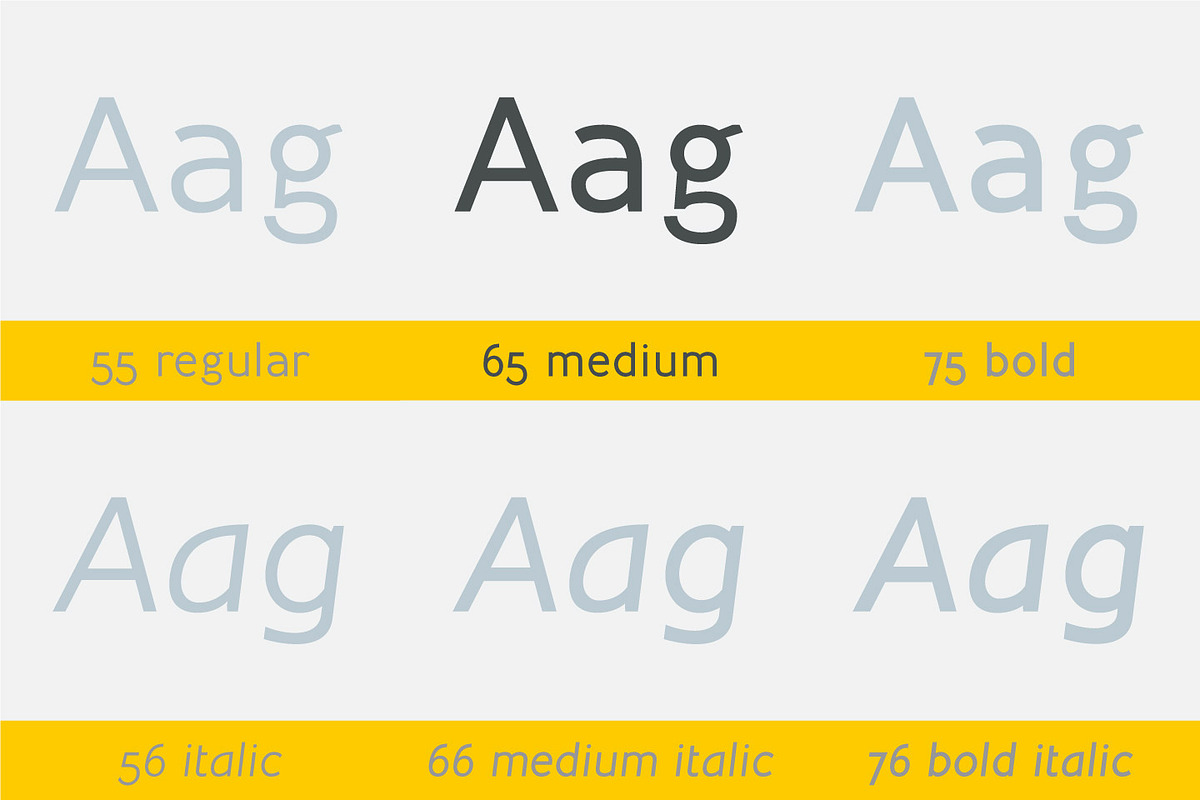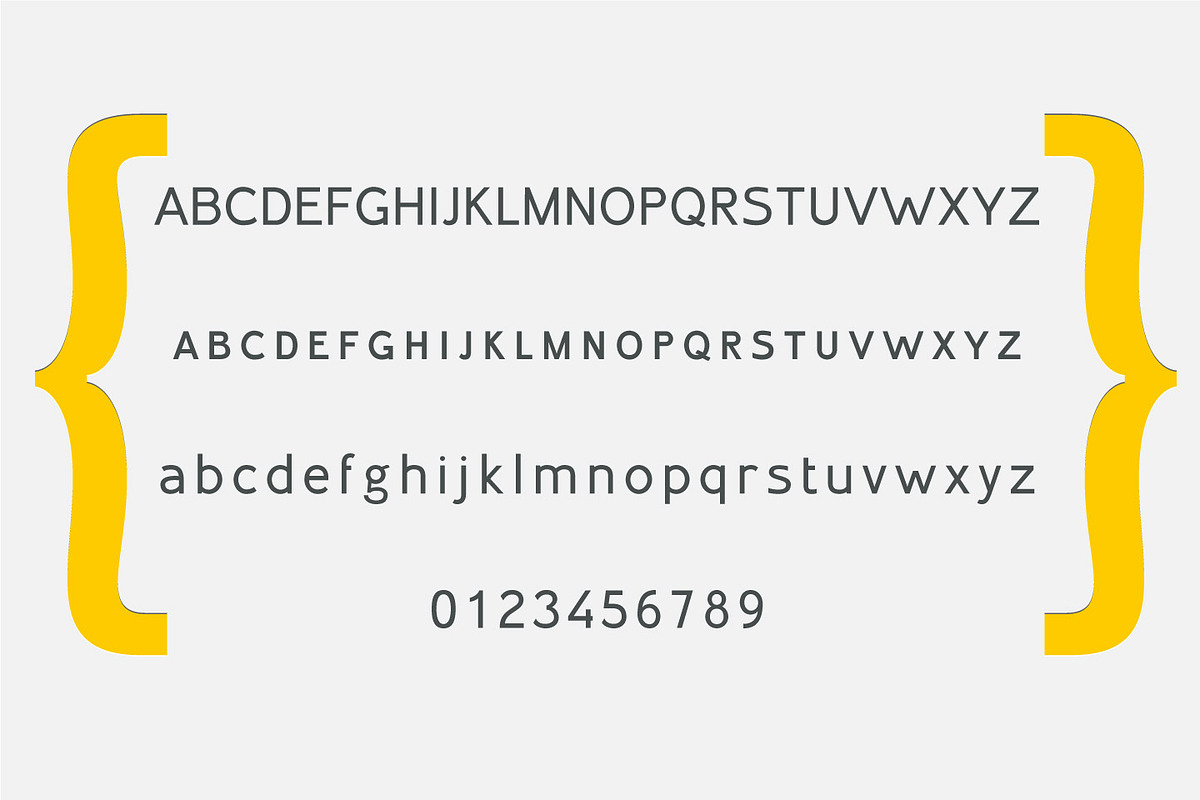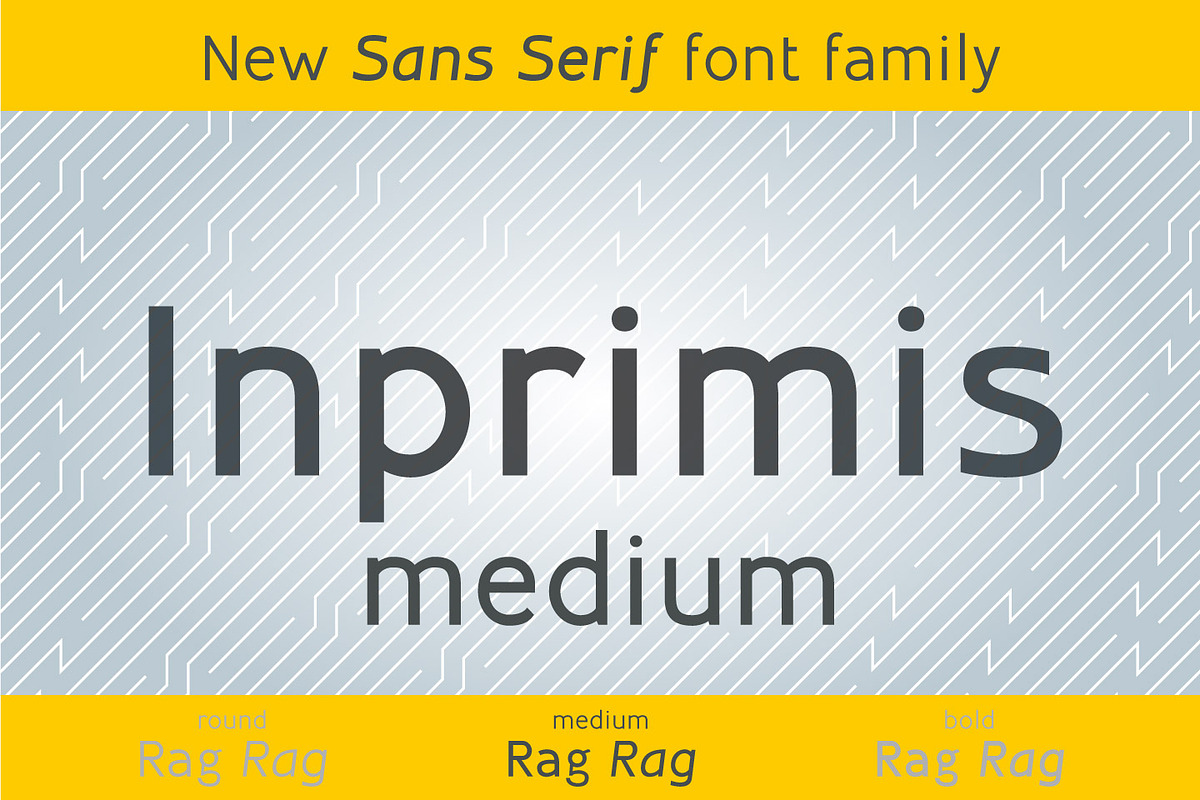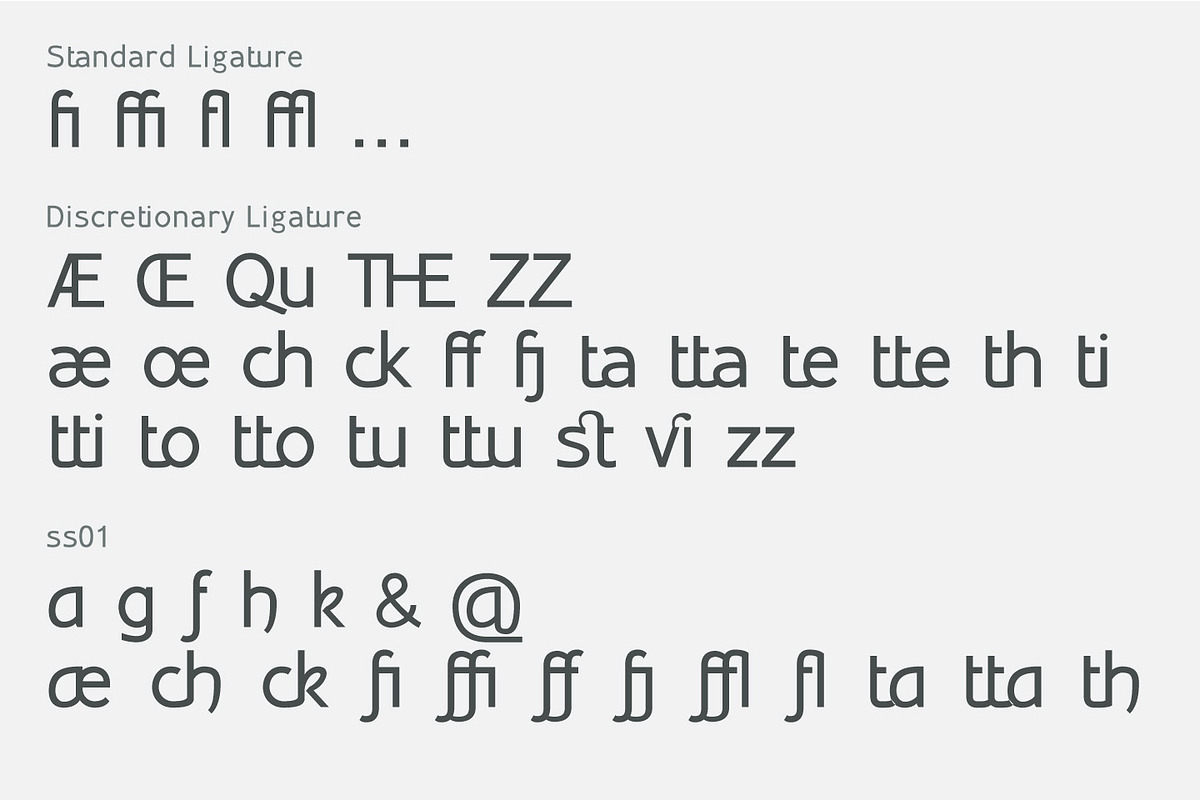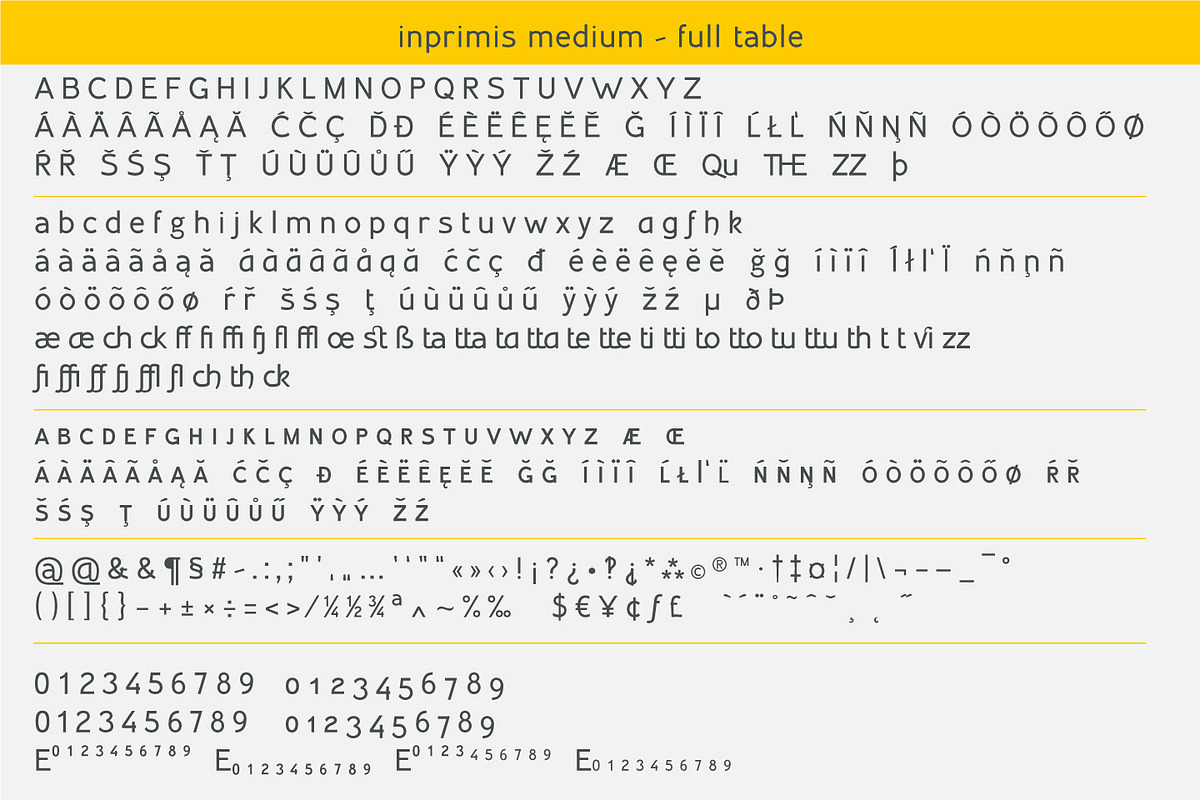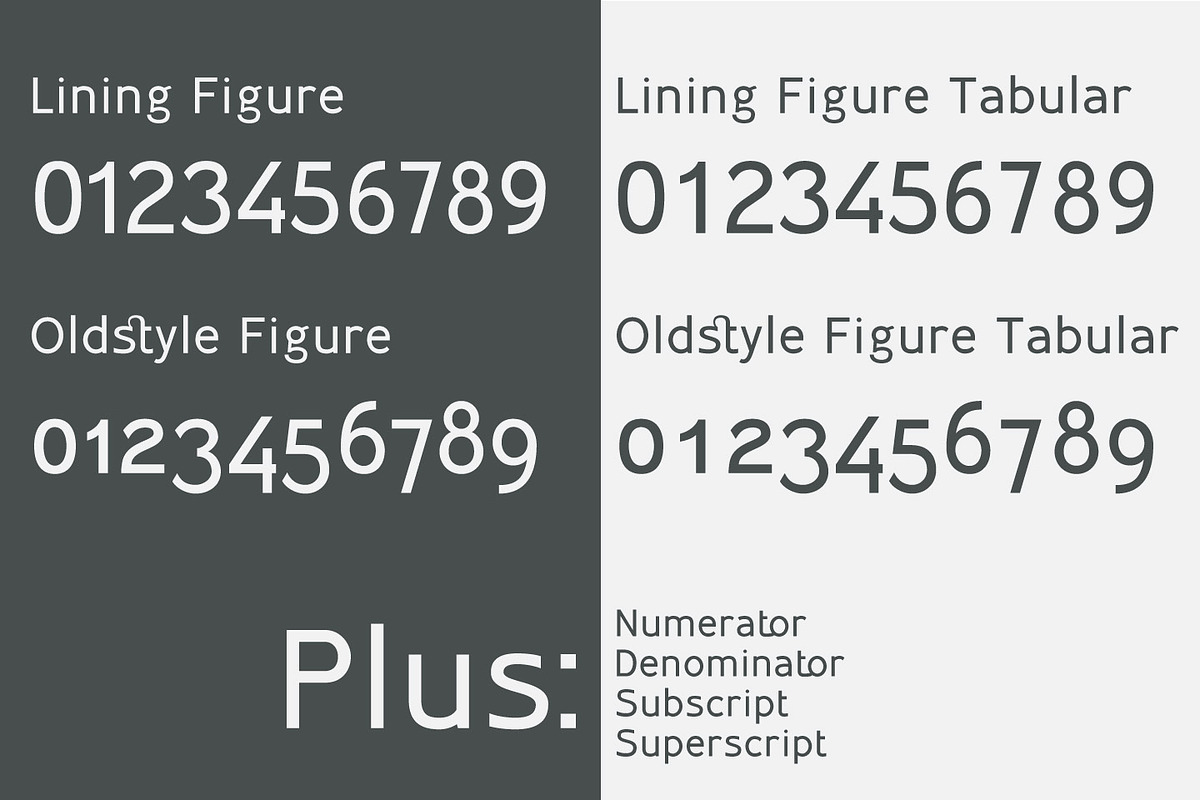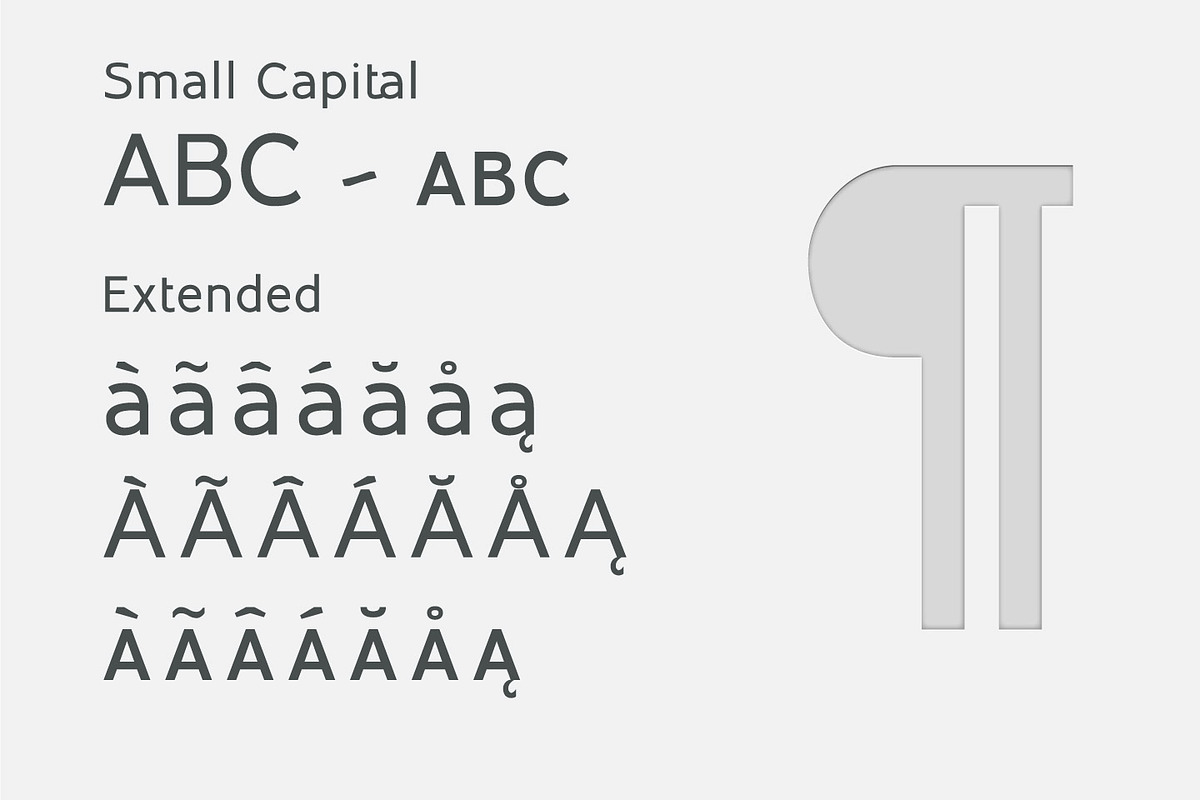
Inprimis Medium
Inprimis is a brand new sans serif type family based on "old style" typography, translated in moder era. A mix of geometric forms, antique ligature and oblsolete (or forget?) gliphs.
It comes in 6 styles: 3 uprights and 3 italics.
Each weight includes extended language support, ligatures and more.
- ¶ 490 gliphs each variant (2940 total)
- ¶ Standard + discretionary ligature
- ¶ Alternative style set
- ¶ Small capital
- ¶ Latin extended
- ¶ Lining + Oldstyle figure linear or tabular
- ¶ Numerator + Denominator + Subscript + Superscript
Now, the family Inprimis are in version 1.26 and completed these variant:
- 55 Regular
- 56 Italic
- 65 Medium
- 66 Medium italic
- 75 Bold
- 76 Bold italic
Work in progress:
- 45 ligth
- 46 light italic
- 85 black
- 86 black italic
Inprimis is incredibly useful on most of creative field like magazine, poster, book, composition.